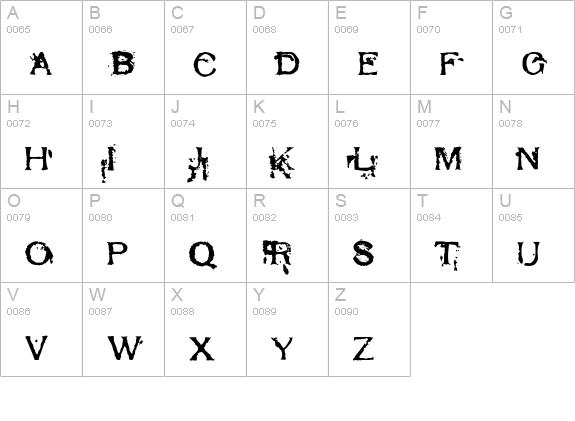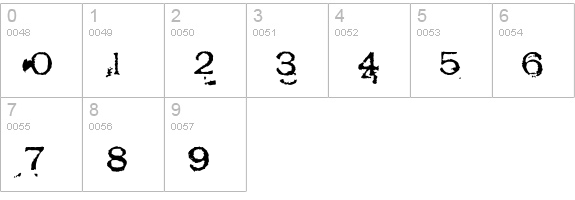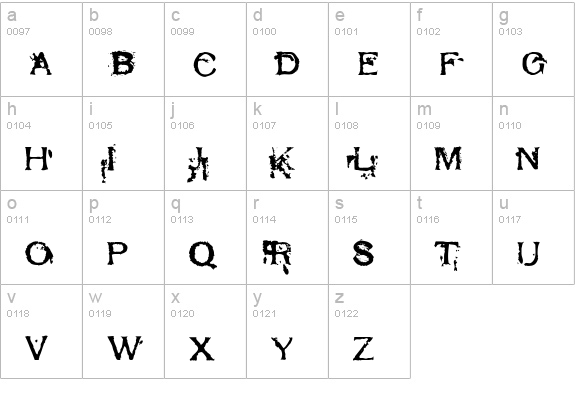
Respess Capitals Excessive Font Details
Respess Capitals Excessive font is a bold and eye-catching typeface that is sure to make a statement. With its exaggerated and exaggeratedly thick capital letters, this font is perfect for creating attention-grabbing headlines, posters, and logos. The unique design of Respess Capitals Excessive font showcases a playful and daring personality, making it an excellent choice for projects that need a touch of creativity and flair. Its exaggerated strokes and thick lines give it a sense of strength and power, making it perfect for projects that require a bold and impactful message. One of the best things about Respess Capitals Excessive font is that it is freely available to download at FontsMarket.com. This means that you can easily access and use this font for both personal and commercial projects without any restrictions. Whether you need to create a striking advertisement or a captivating social media post, Respess Capitals Excessive font is the perfect choice. Its versatility and boldness make it suitable for a wide range of design projects, from branding and packaging to web design and signage. With the ability to instantly grab attention and make a lasting impression, Respess Capitals Excessive font is a must-have for any designer or creative professional. So why wait? Enhance your designs and captivate your audience with Respess Capitals Excessive font. Download it for free at FontsMarket.com and unleash your creativity today.